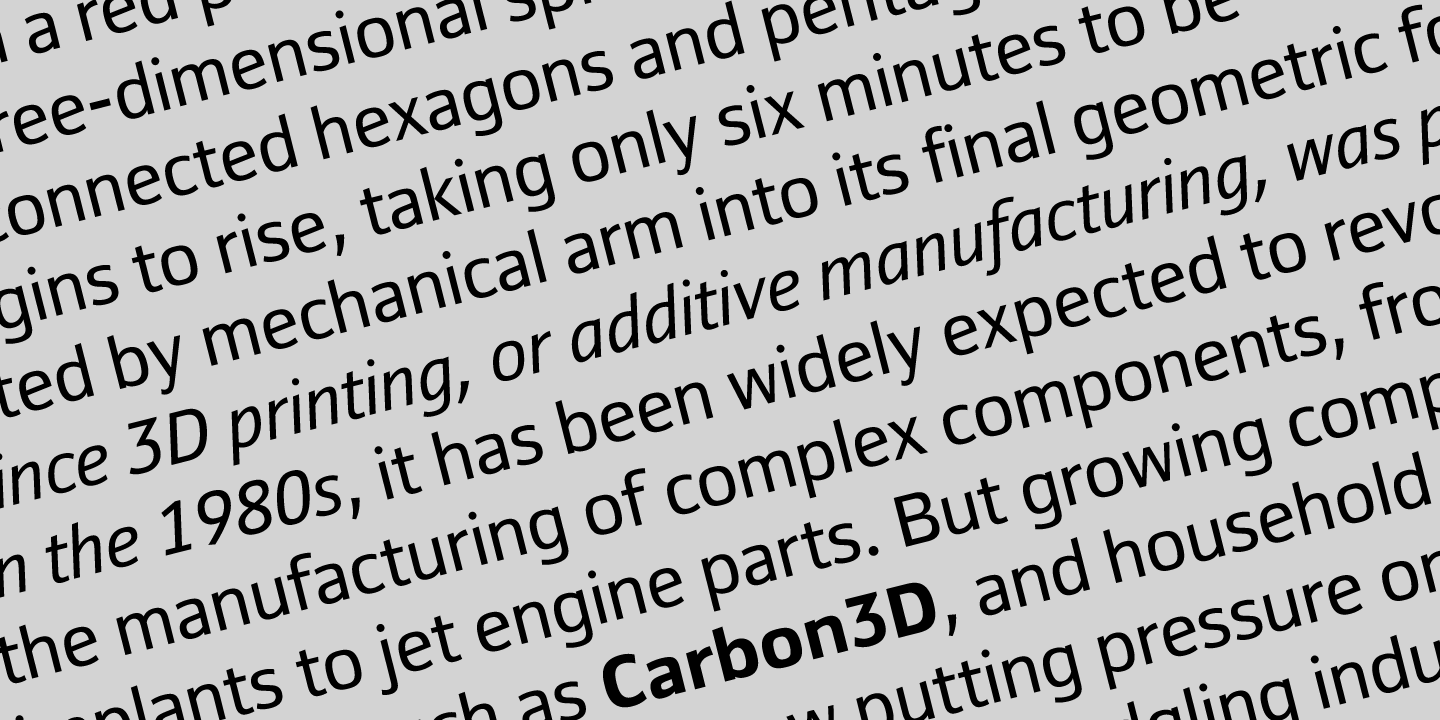
Yefimov Sans Font is perfect for Eastern European cultural projects, international business communications, modern architectural signage, contemporary art exhibitions, multilingual publications, global brand identities, cultural heritage materials, and sophisticated design projects that require clean typography with Slavic character and international versatility.
This Yefimov Sans Font is exciting because it masterfully bridges Eastern European typographic traditions with contemporary sans serif clarity, featuring refined letterforms that honor Cyrillic heritage while delivering exceptional functionality for modern international communications and maintaining perfect balance between cultural authenticity and universal appeal.
The Yefimov Sans Font family includes versatile weights with Eastern European styling, complete character sets with precise uppercase and lowercase letters, international numerals, comprehensive punctuation, and extensive language support that provide comprehensive typography solutions for multicultural and international design projects requiring authentic Slavic aesthetics.
Perfect for creating culturally-rich communications and international brand identities, Yefimov Sans Font Free Download delivers the sophisticated typography that transforms text into powerful expressions of Eastern European heritage and contemporary global design. This distinctive typeface celebrates Slavic typographic traditions while embracing modern functionality, making it essential for projects honoring Eastern European culture, international communications, cultural exhibitions, and any design requiring refined character with authentic Slavic sophistication and contemporary international appeal.